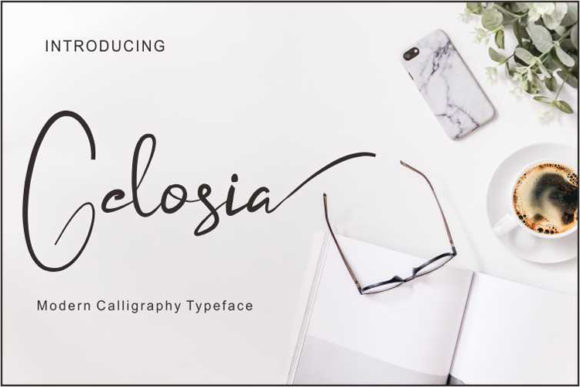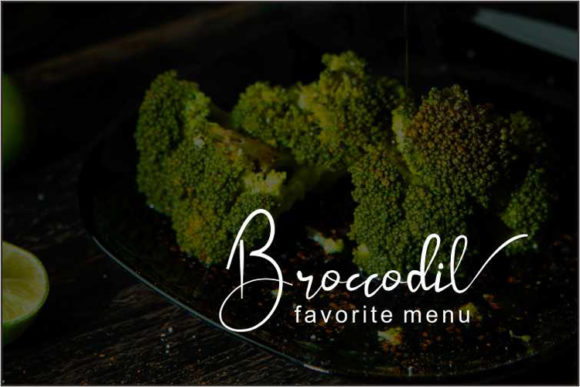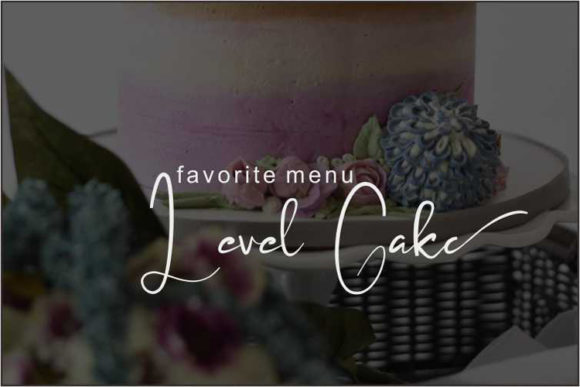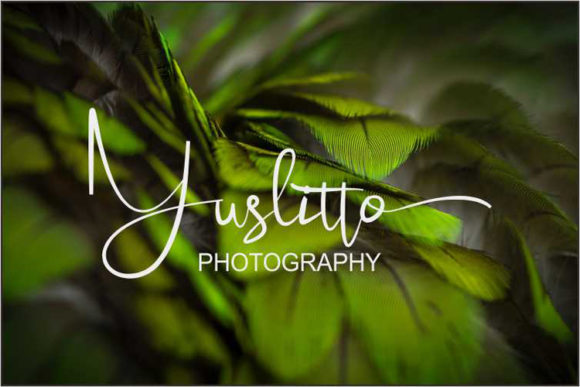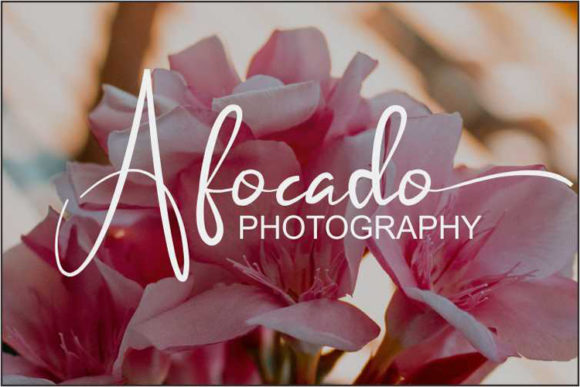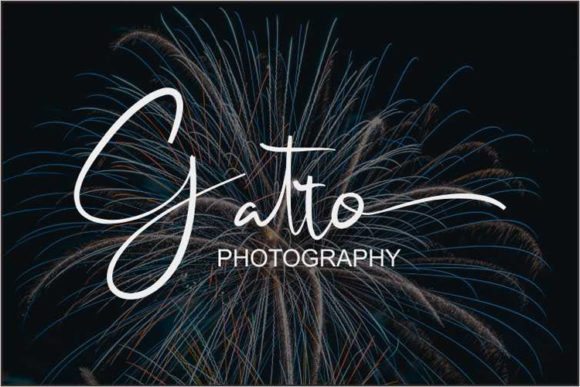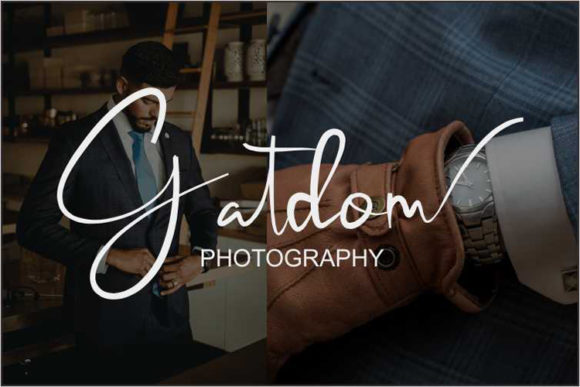
Celosia Font
About Celosia Font
The Celosia is an amazing calligraphy font. It’s modern style makes it perfect for invitations, greeting cards, posters, quotes, fashion, logos, letters, and much more!